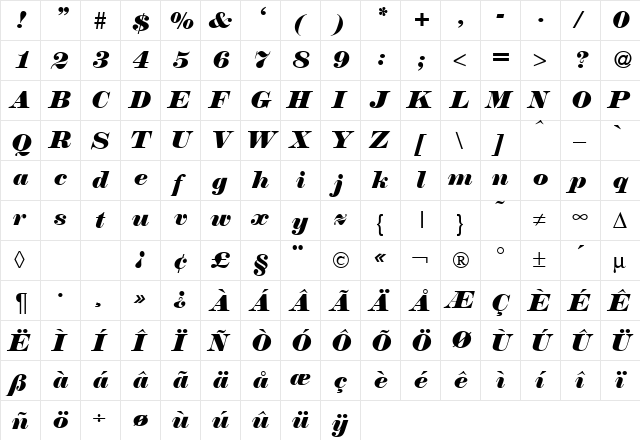
Norton RegularItalic Font Preview
Norton RegularItalic
Design Context for Norton Typeface
Norton is a composed and adaptable typeface that performs quietly and consistently across a wide range of design contexts. Its italic angle brings a sense of urgency and motion to the letterforms.
Pro Tip: Use Norton for emphasis, pull quotes, and subheadings where its slanted energy can add rhythm to the layout.